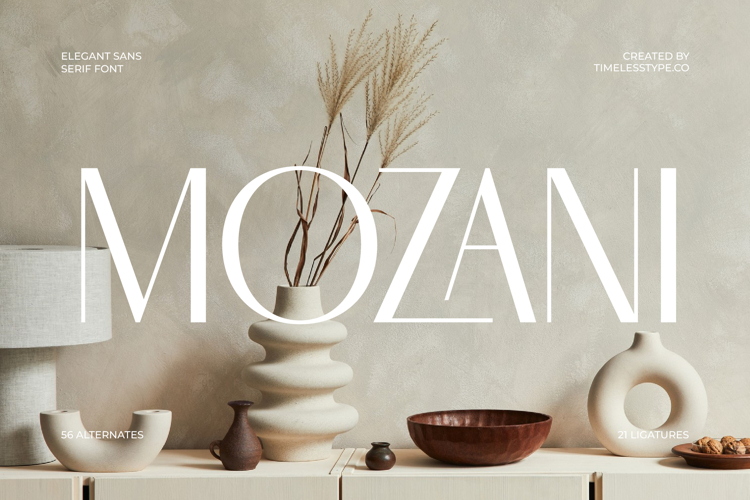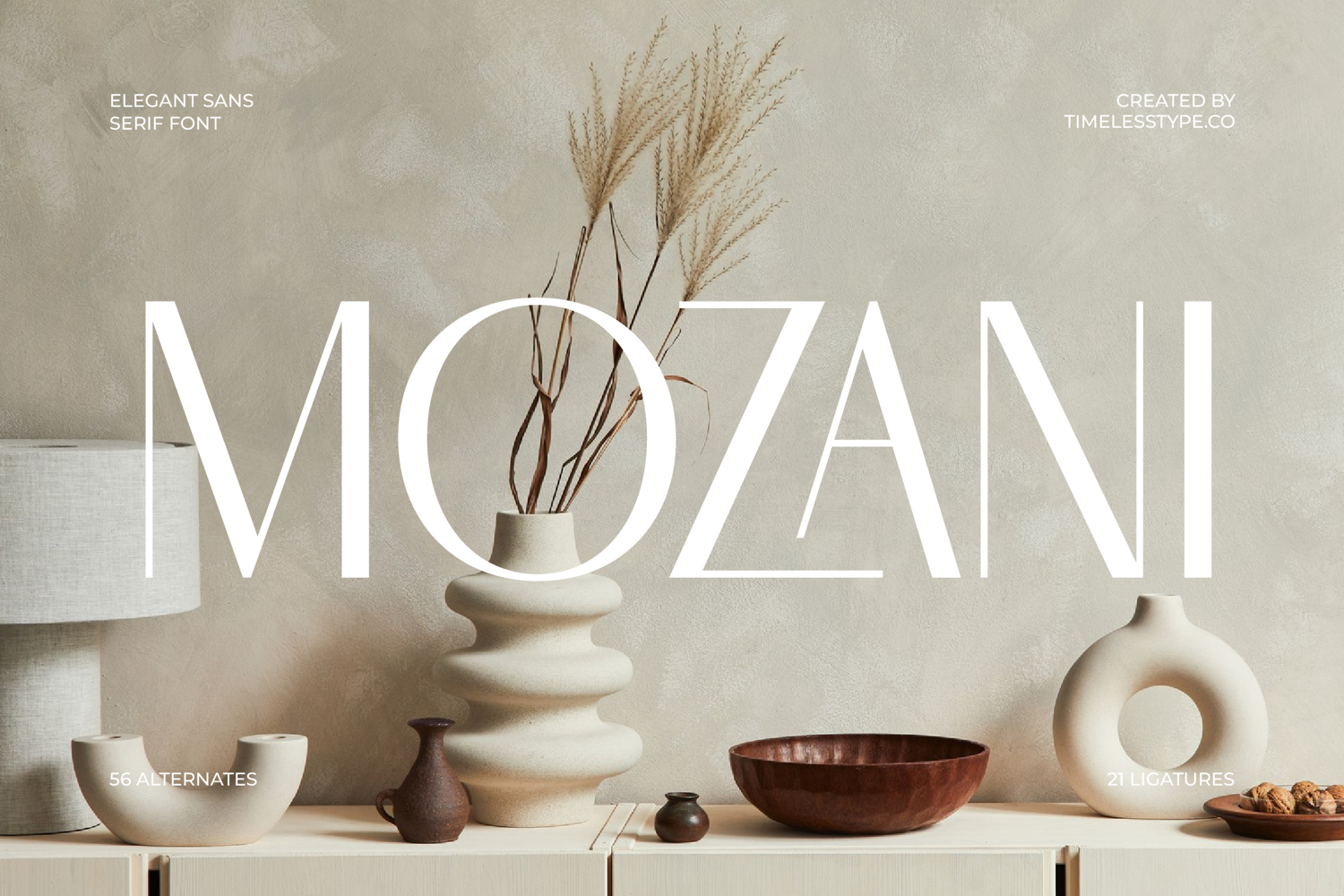
Mozani - Elegant Sans Serif Font
Elevate your design projects with the unparalleled sophistication of Font Mozani - Elegant Sans Serif Font Sans Serif. This exquisite typeface embodies a perfect fusion of modern aesthetics and timeless elegance, crafted for designers demanding both impact and refinement. Its distinct high-contrast letterforms and balanced proportions ensure your message is delivered with authority and grace, creating a polished brand identity.
Unlock boundless creative possibilities with Font Mozani - Elegant Sans Serif Font Sans Serif's comprehensive feature set. Boasting 56 alternates and 21 ligatures, this font offers exceptional flexibility, allowing you to fine-tune typography for a truly unique and custom look. From impactful headlines to subtle subheadings, its versatile character lends itself effortlessly to a multitude of design applications, an indispensable asset.
Go global with confidence, knowing your brand speaks every language with pristine clarity. With its extensive multilingual support, Font Mozani - Elegant Sans Serif Font Sans Serif adapts seamlessly across global markets, making it incredibly versatile for international projects. This linguistic breadth ensures elegant typography maintains integrity and impact, connecting with audiences worldwide.